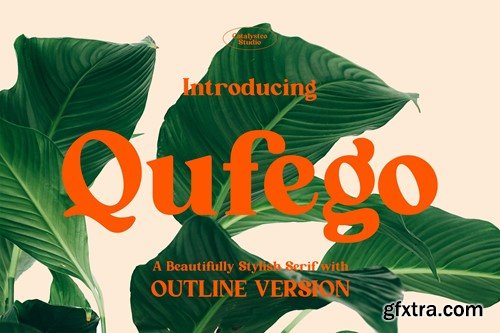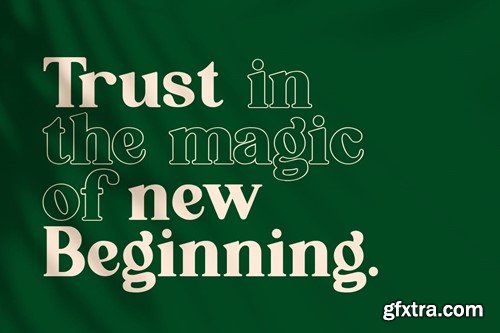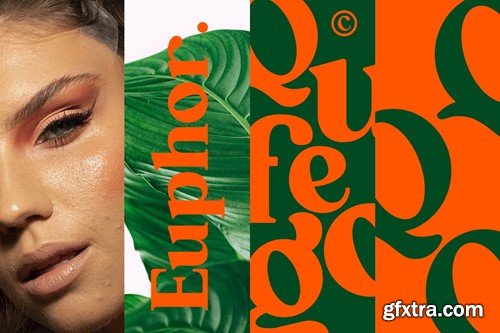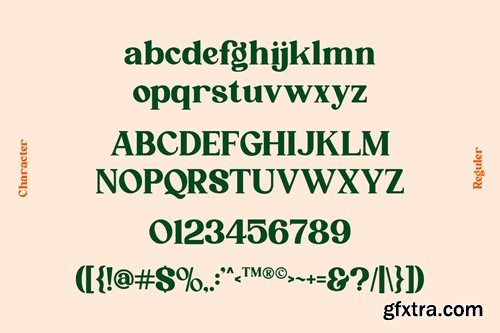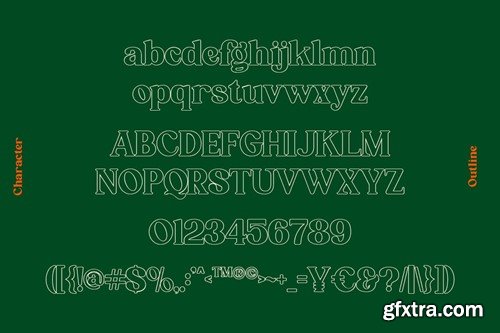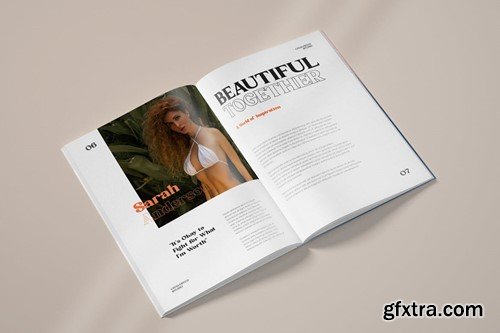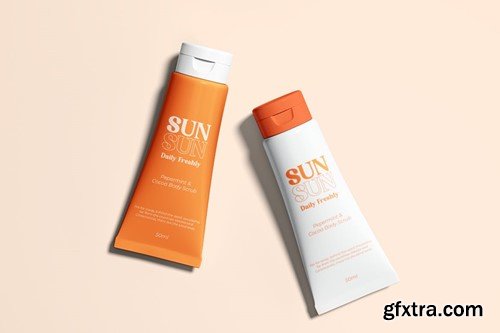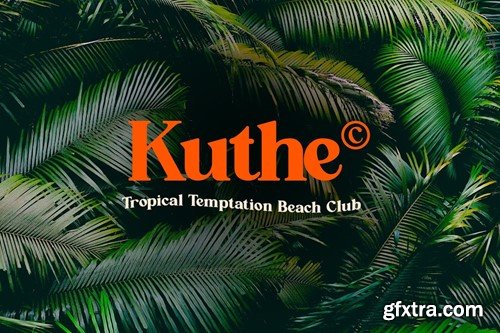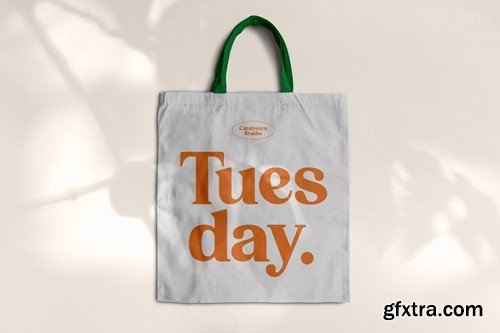
Qufego 美式 serif 字体 QJPHNC7
Qufego Stylish Serif Font QJPHNC7
Qufego Stylish Serif Font
**Qufego Stylish Serif Font ** typeface excellent used for the manufacture quote text, logotype, header magazine, and many more.
Main Features
• Numeral & Punctuations